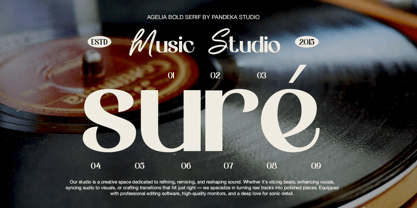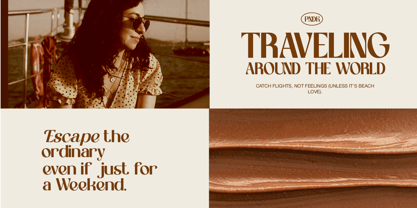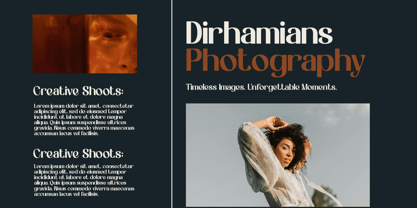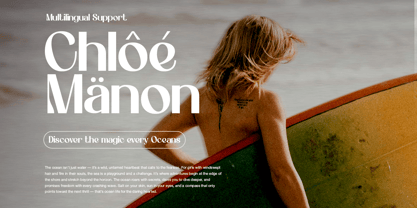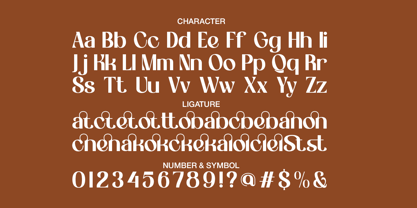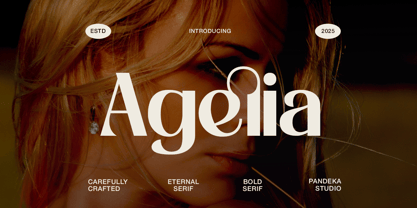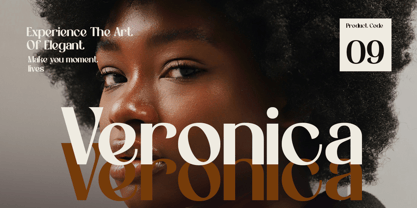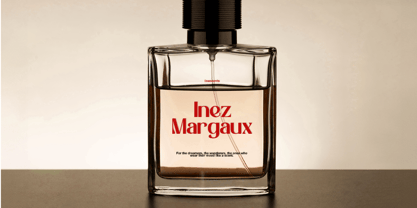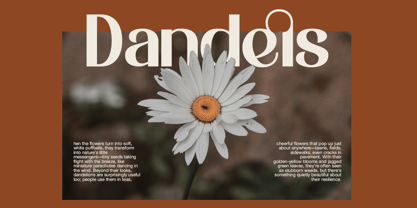
Agelia
by Pandeka Studio
The Agelia Font Family was designed by Sagara Nararya and published by Pandeka Studio. Agelia contains 2 styles and family package options. More about this family
Agelia – Elegant Serif Typeface
Agelia is an eternal serif font with 2 refined styles: Regular and Italic. Blending timeless typography with a sophisticated look, it’s perfect for elegant design applications such as luxury branding, classic packaging, editorial layouts, wedding invitations, premium book covers, and high-end website headers. With its graceful lettering and polished aesthetic, Agelia adds a unique, refined touch to any project.
• 2 Styles: Regular and Italic
• Full Character Set: uppercase, lowercase, numbers, symbols, punctuation and ligature
• 20+ Ligatures and alternates